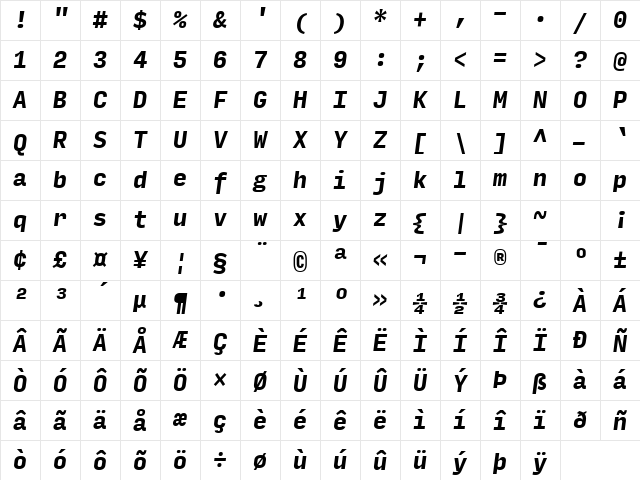
Input Mono Narrow Bold Italic
Foundry: David Jonathan Ross and The Font Bureau
Designer: David Jonathan Ross
Design Context for Input Mono Narrow
Input Mono Narrow uses fixed-width spacing throughout, giving it the structured, systematic character associated with coding environments and technical documentation. The slanted form adds forward momentum and visual energy. Its bold stroke weight gives it real presence on the page.
Pro Tip: Use Input Mono Narrow with slightly increased line-height for extended reading - fixed-width spacing can feel dense in longer passages without extra breathing room.